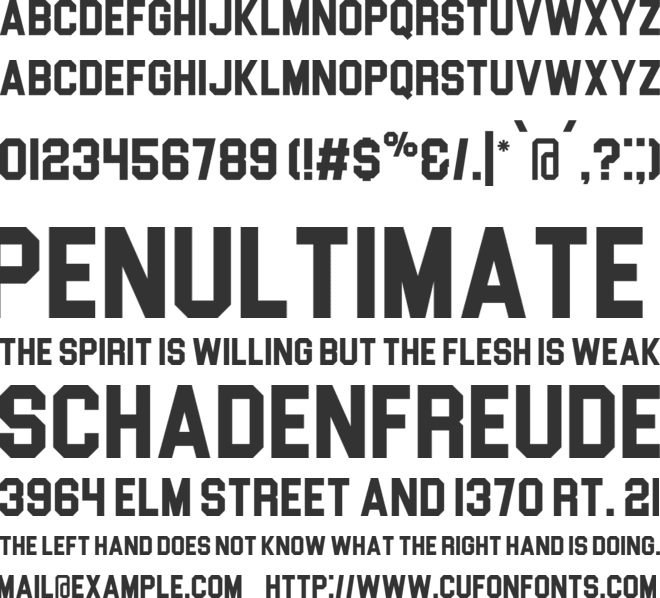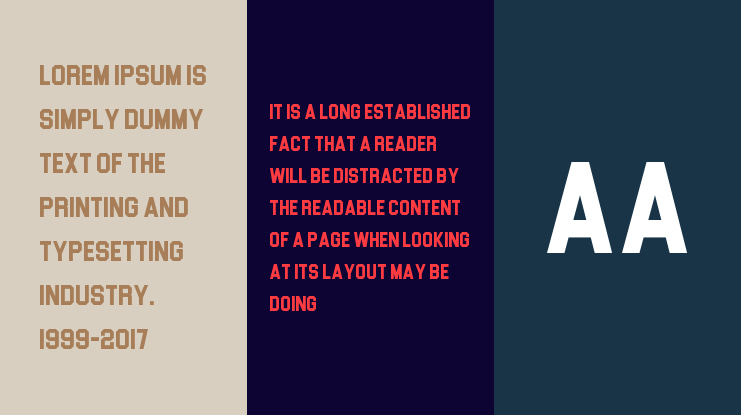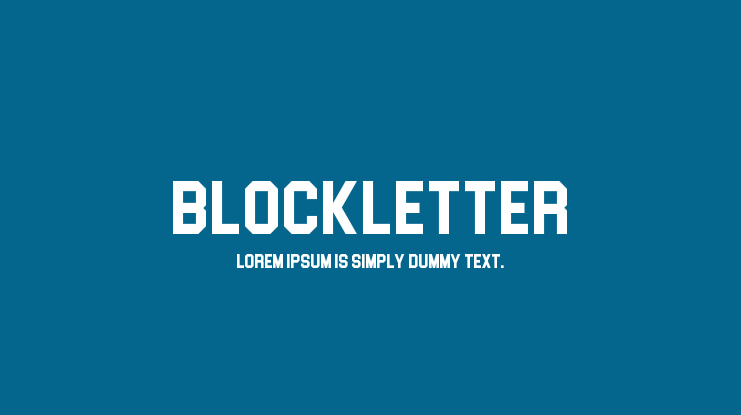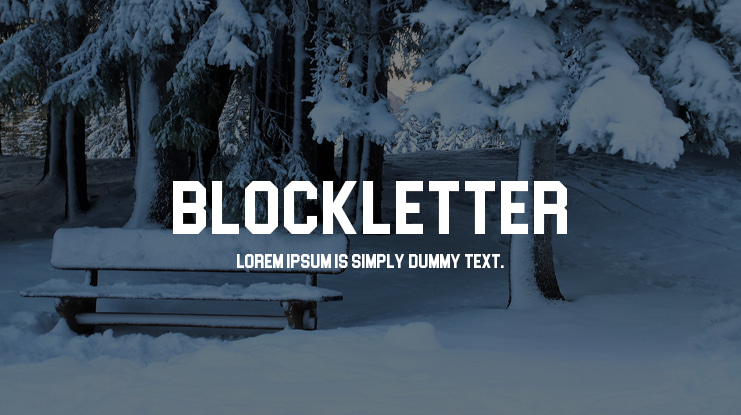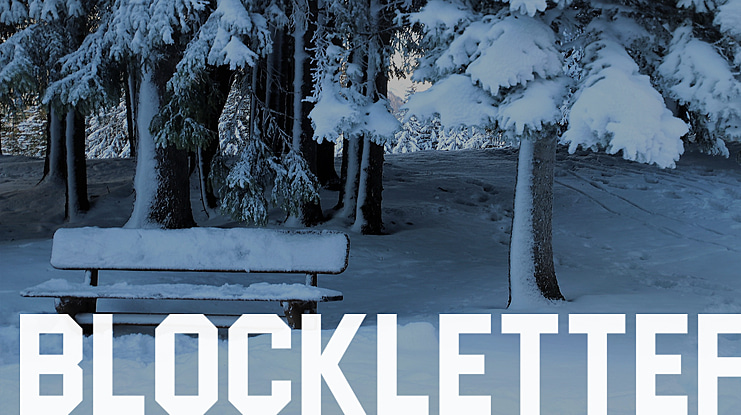
Blockletter Font
Who's up for a movie night? In a distant land far, far away VHS tapes were once king. Blockletter is a clean, basic sans serif based on the now defunct Blockbuster Video logo. It also resembles the Hollywood sign, military lettering, and type found on collegiate apparel. This is a complete overhaul
based on a font I designed years ago. Blockletter features only uppercase characters and basic punctuation but contains European accents, diacritics, and kerning. The regular version is included for personal use. The other 3 are available with purchase of a commercial license. If you don't require